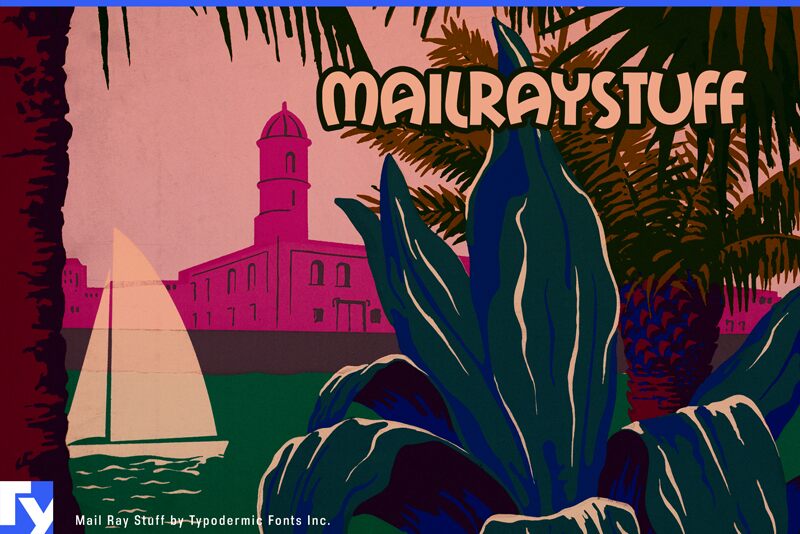
Mail Ray Stuff by Ray Larabie is a free comic display font with oversized, uneven letters that seem to bounce and lean across the line. Its dense strokes, irregular widths, exaggerated curves, and abruptly pinched joins create a rubbery, hand-cut silhouette, with several forms squeezed or stretched for comic effect.
Children's event posters are an especially good match, and the same lively distortion suits toy packaging, game graphics, and music merchandise. For children's entertainment brands, the lettering can become a recognizable mascot-like part of the product identity rather than ordinary neutral lettering.
Mail Ray Stuff